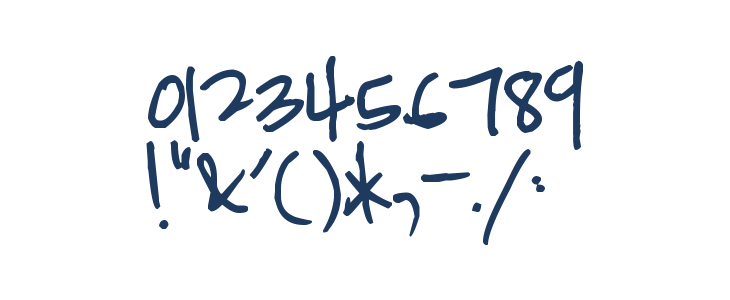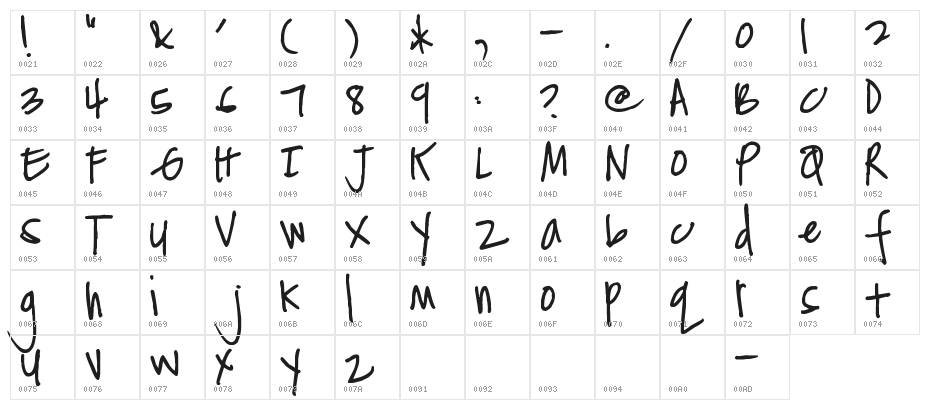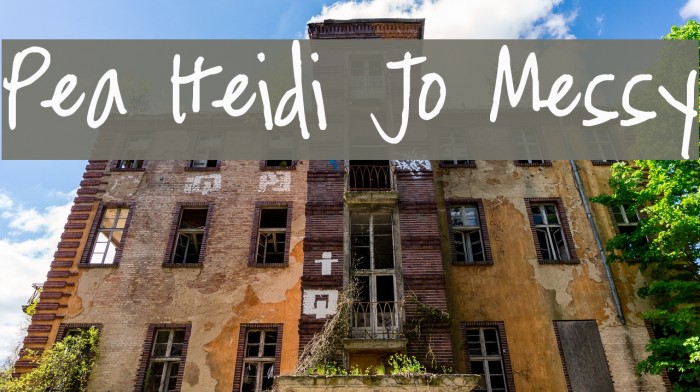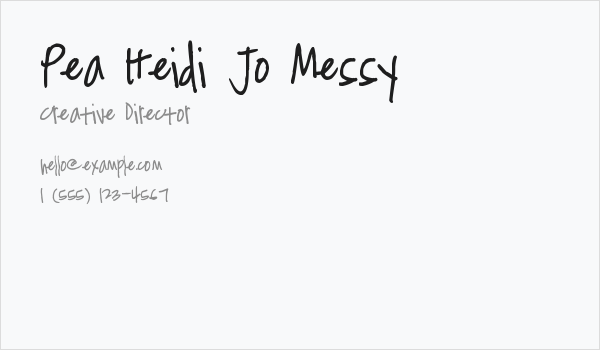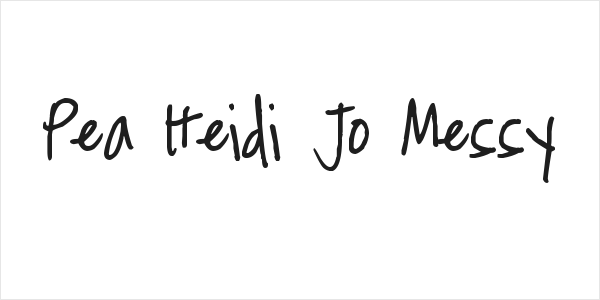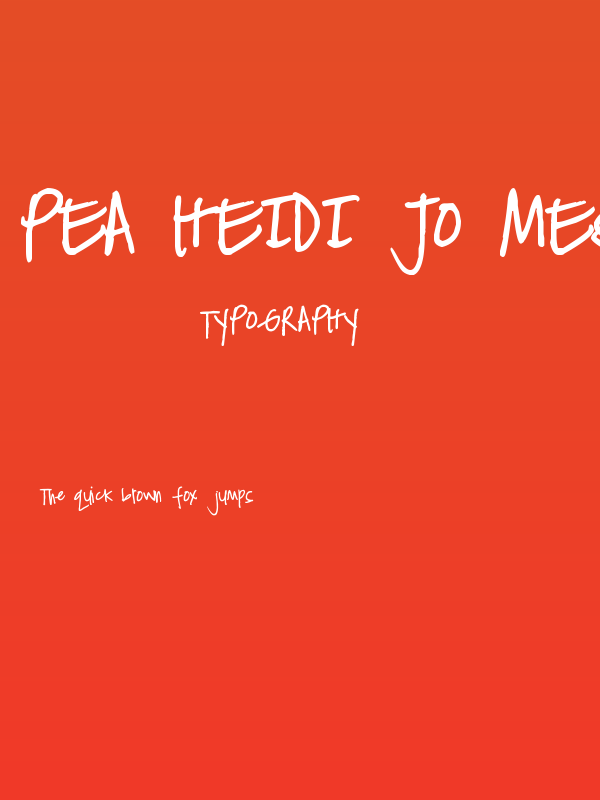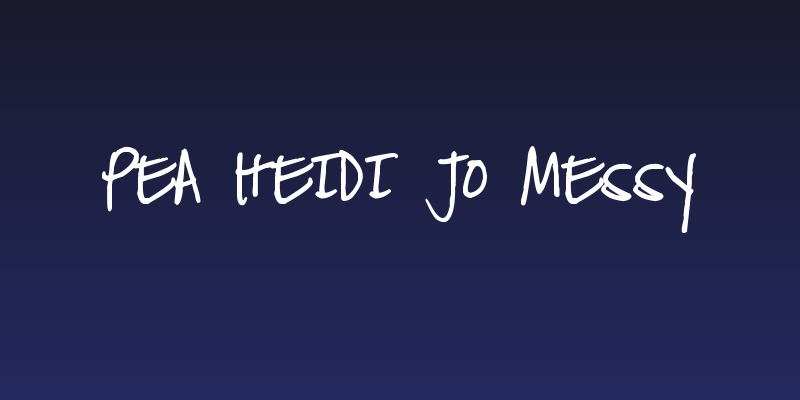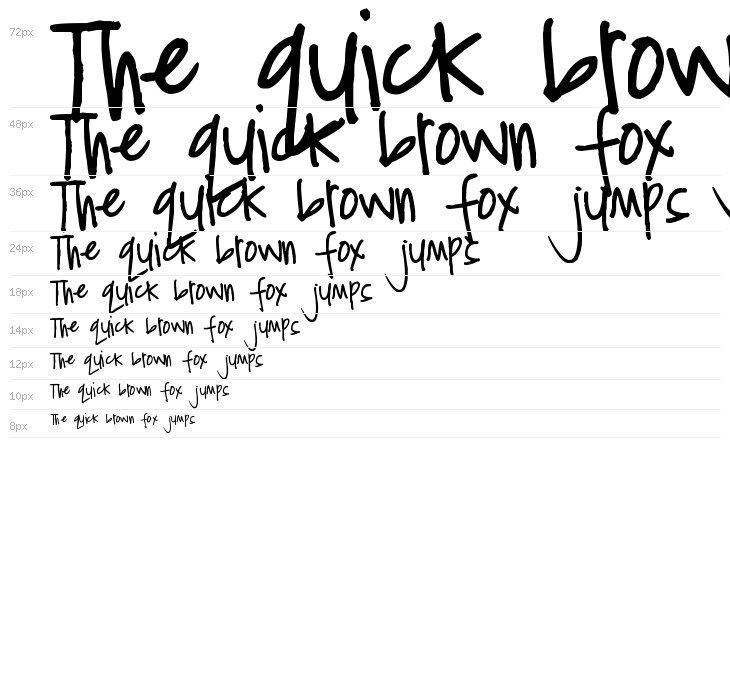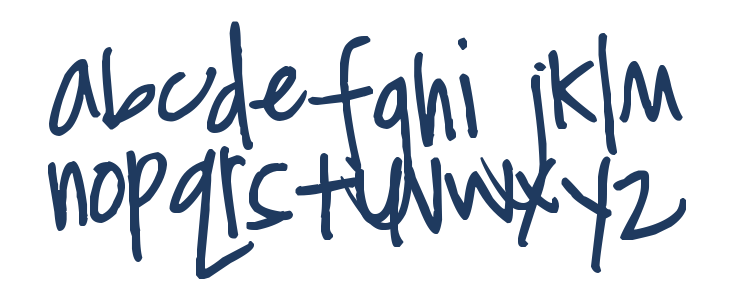
Pea Heidi Jo Messy Font
Pea Heidi Jo Messy Description
This font exudes a casual, handwritten style with a playful and informal appearance. The letters are unevenly sized and spaced, giving it an authentic, personal touch. The strokes are bold and confident, with a slightly messy yet charming aesthetic. The uppercase and lowercase letters maintain a consistent style, while the numbers and special characters complement the overall look. This font is perfect for projects that require a personal, human touch, such as greeting cards, personal notes, or creative projects.
| Proposed Projects | Ideal for greeting cards, personal notes, scrapbooking, and creative projects that require a personal touch. |